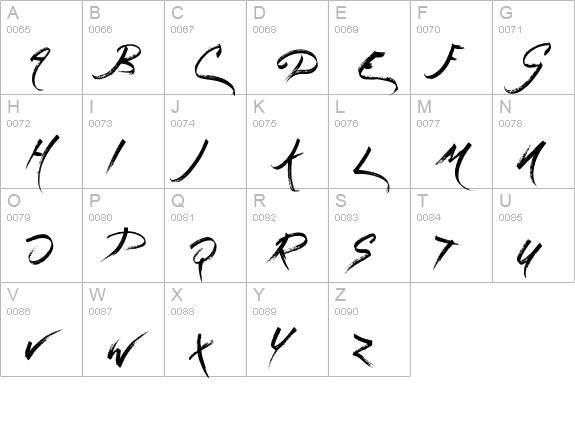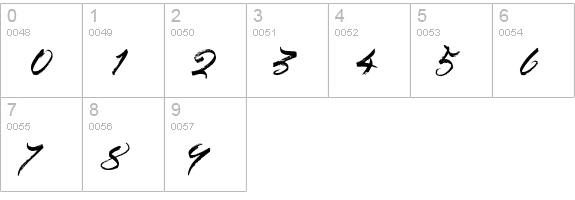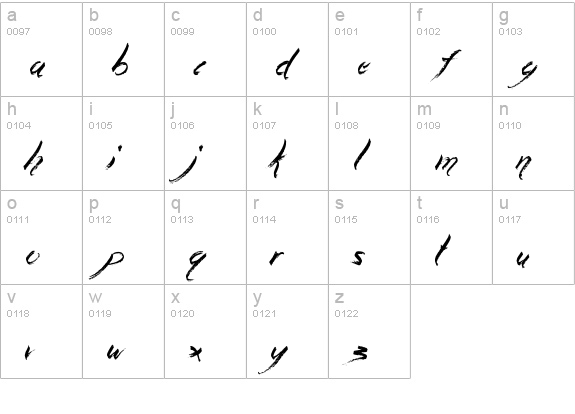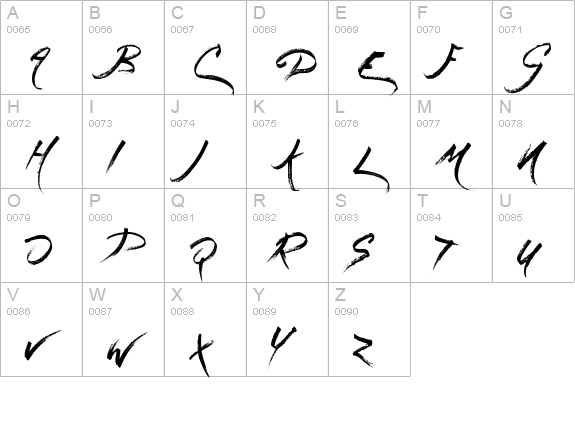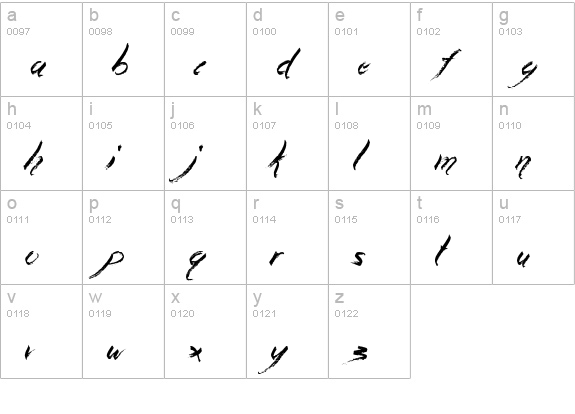
Introducing Magic Pies font, a captivating and enchanting typeface that will add a touch of magic to your designs. With its whimsical curves and playful letterforms, Magic Pies captures the essence of wonder and imagination, making it perfect for a variety of creative projects. This delightful font brings a sense of joy and excitement to any design, whether it's used for logos, branding, invitations, or even children's books. Its unique and eye-catching characters are sure to captivate your audience and leave a lasting impression. But that's not all - Magic Pies font is not only visually stunning, but it's also free! That's right, you can freely download this extraordinary font at FontsMarket.com. Now you can effortlessly add a touch of magic to your projects without breaking the bank. Designed with versatility in mind, Magic Pies font is available in a range of weights and styles, allowing you to find the perfect fit for your needs. Whether you're aiming for a bold and daring look or a soft and whimsical feel, this font has got you covered. So why wait? Unlock the magic and let your creativity soar with Magic Pies font. Download it for free at FontsMarket.com and let the enchantment begin.